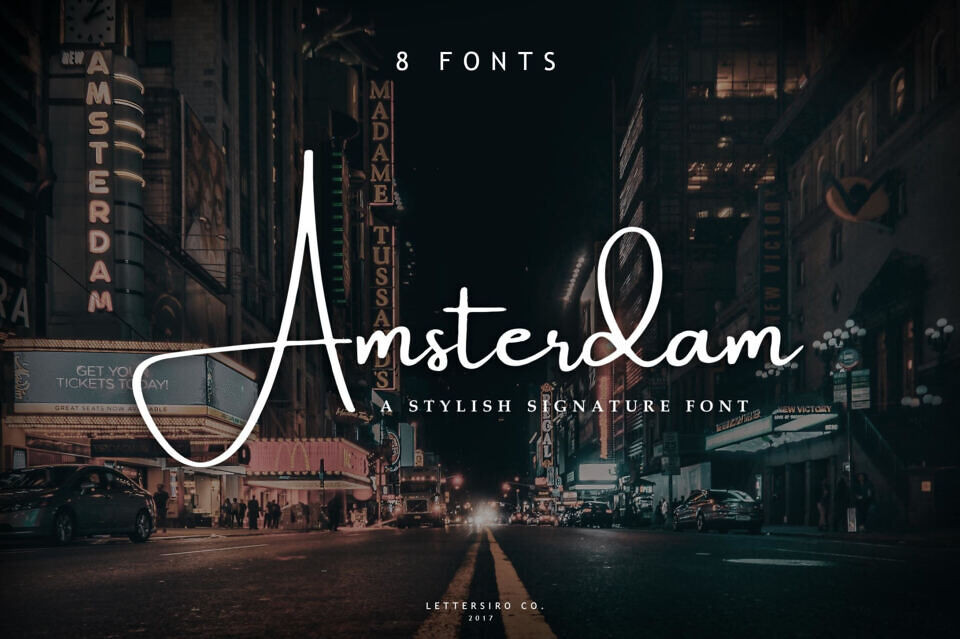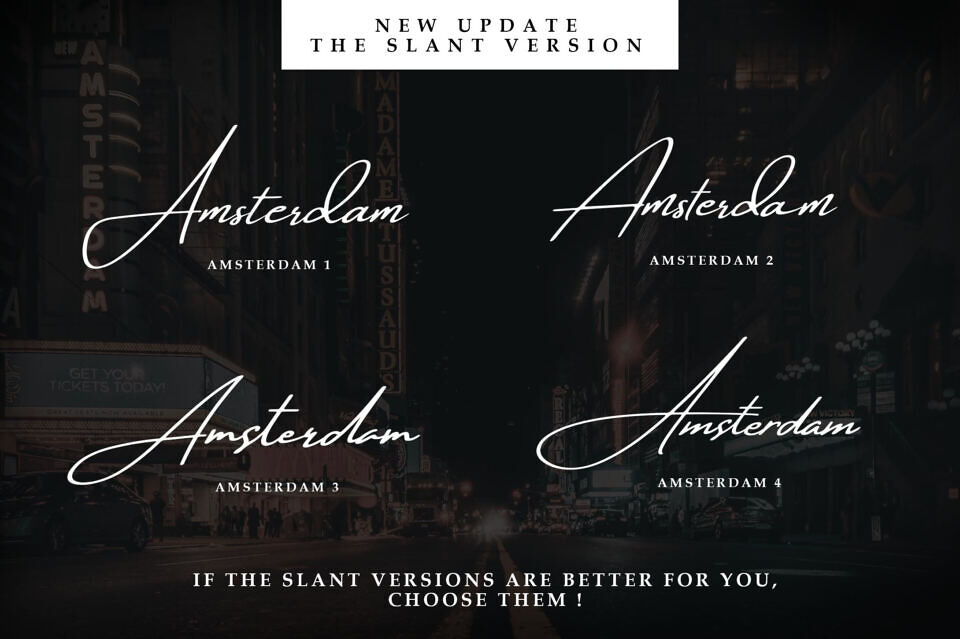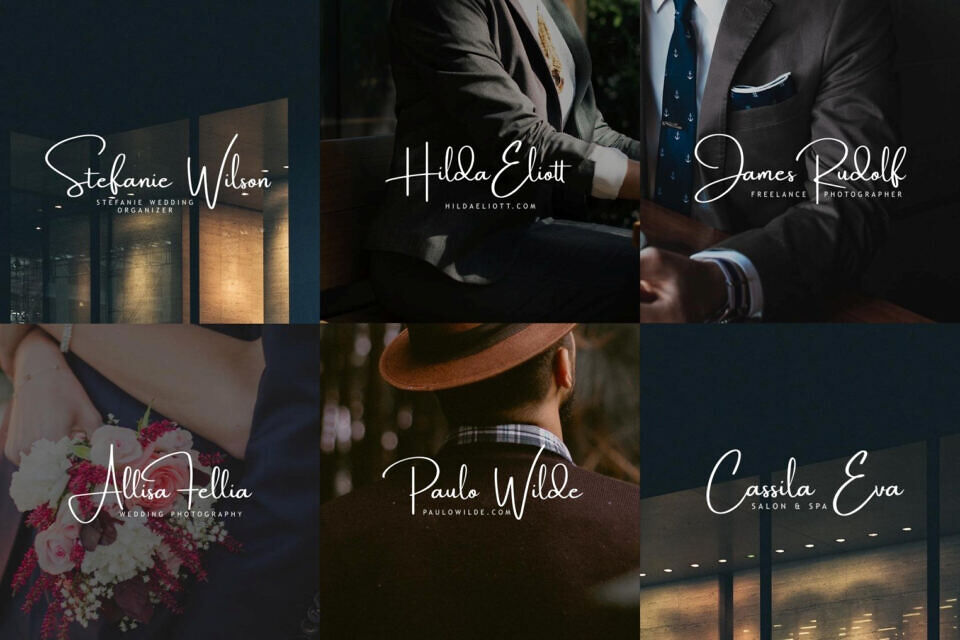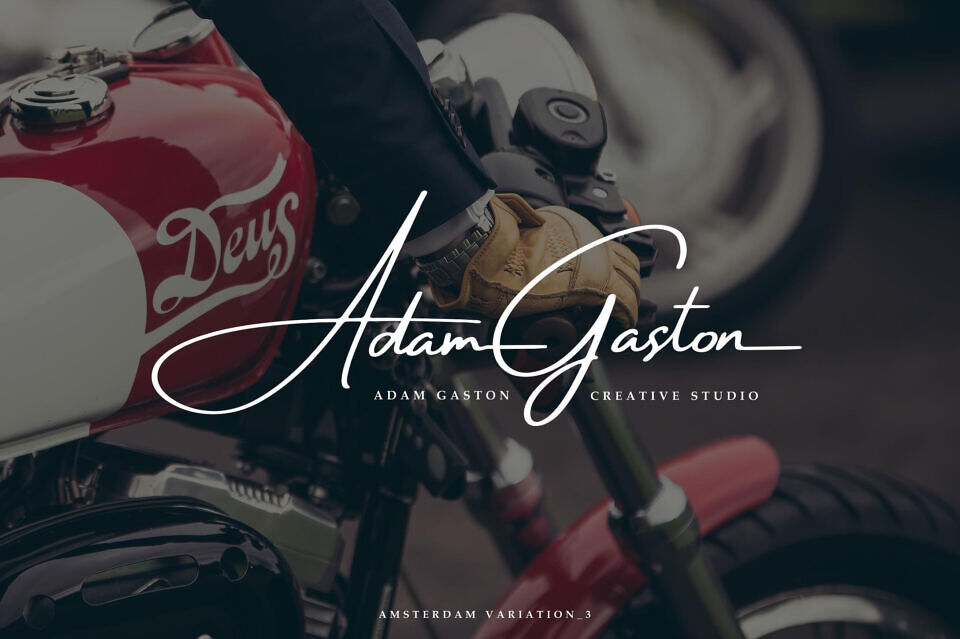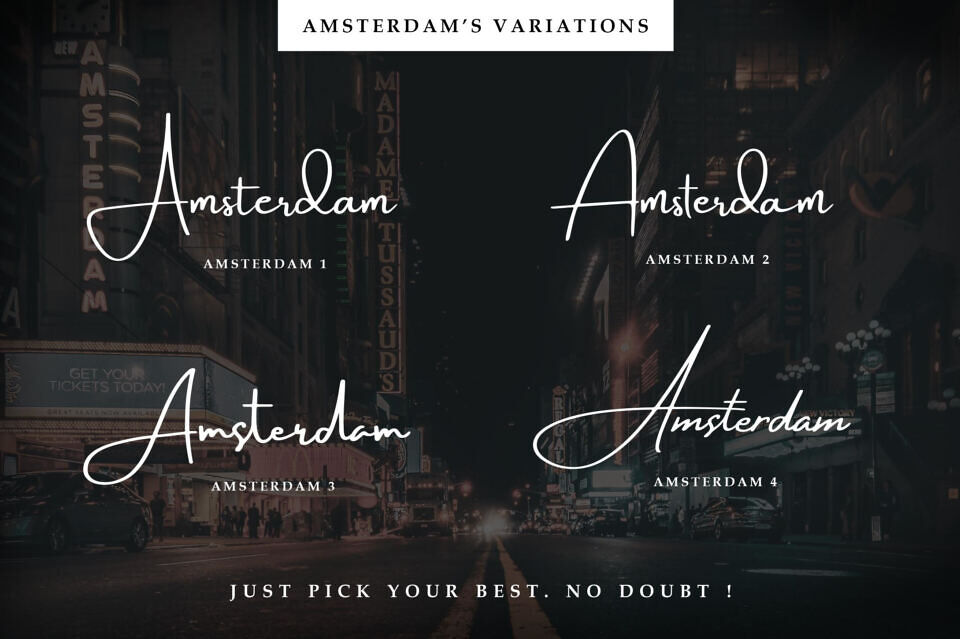
Amsterdam Font Family
The Amsterdam font is a simple and classy font, comes with 8 Elegant Variations, opentype features such as stylistic alternates,initial and final form, and ligatures. We keep this font looks elegant, classy, readable, stylish, catchy and easy to use.
The Amsterdam Font is the great choice for watermark on photography, signature or signature logo design, quotes, album cover, business card, and many other design project. From business cards to photo watermarks, The Amsterdam is here to elevate your work to the highest level!